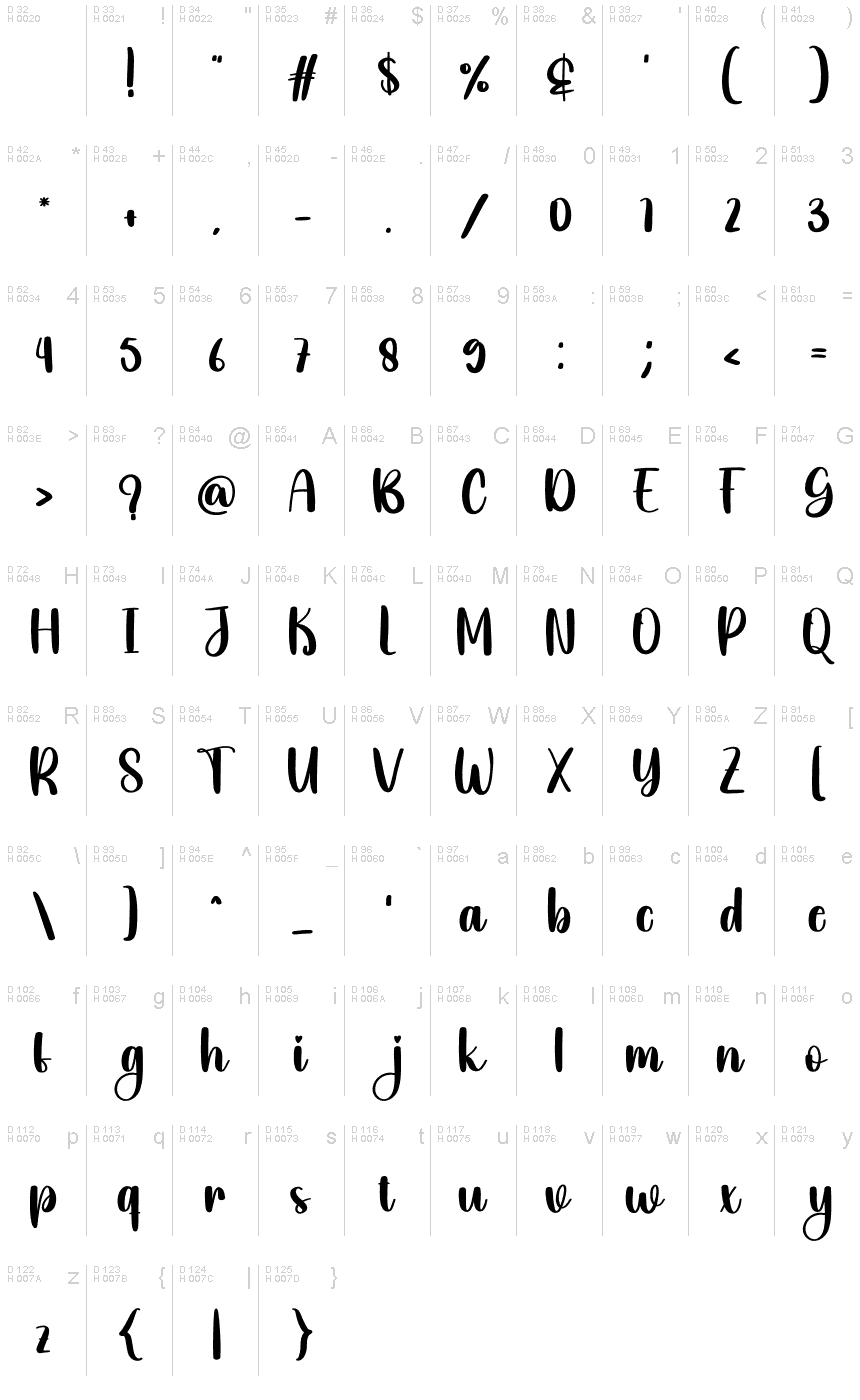
Beverage
Beverage, designed by Scratchones, is a delightful handwritten font that adds a touch of charm to any project.
Its flowing strokes and warm curves make it perfect for wedding invitations, love letters, or romantic greeting cards. With its playful yet elegant style, Beverage would also be well-suited for branding boutique cafes, organic juice bars, or artisanal bakeries.
Embrace the beauty of this lovely handwritten font and let it infuse your designs with sweetness and personality.